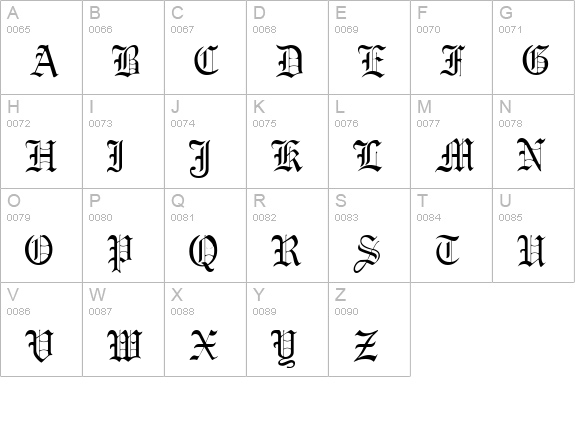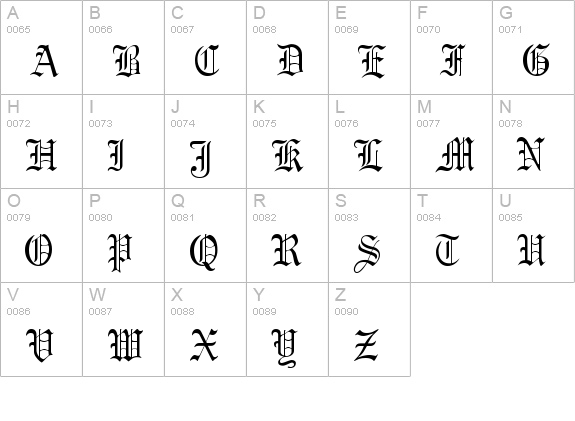
Gregory Normal Font Details
Gregory Normal is the standard, neutral variant in the Gregory typeface family \xE2\x80\x94 well suited to general body text, paragraphs, and standard typographic work.
Gregory Normal font is a classic and versatile typeface that exudes elegance and sophistication. Its clean lines and balanced proportions make it suitable for a wide range of design projects, from branding to editorial layouts. The timeless appeal of Gregory Normal font is perfect for creating a professional and polished look. This font is not only visually pleasing but also incredibly easy to read, making it ideal for both print and digital applications. Whether you're designing a logo, poster, or website, Gregory Normal font will add a touch of refinement to your work. And the best part? Gregory Normal font is free to download at FontsMarket.com. This means you can elevate your designs without breaking the bank. Don't miss out on this opportunity to enhance your projects with the timeless beauty of Gregory Normal font. Download it today and see the difference it can make!